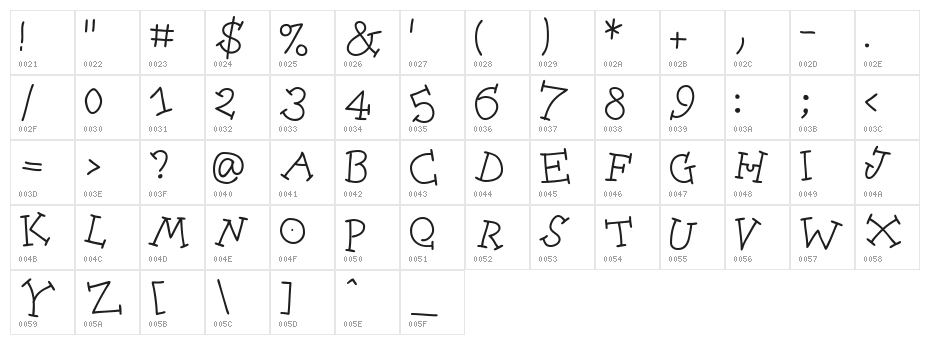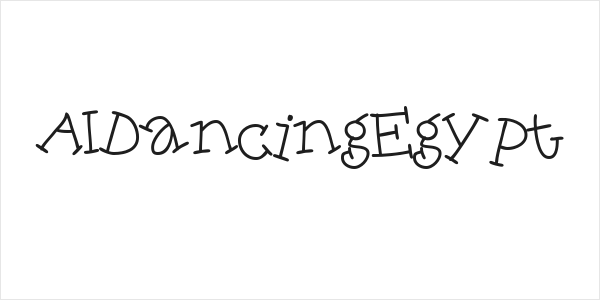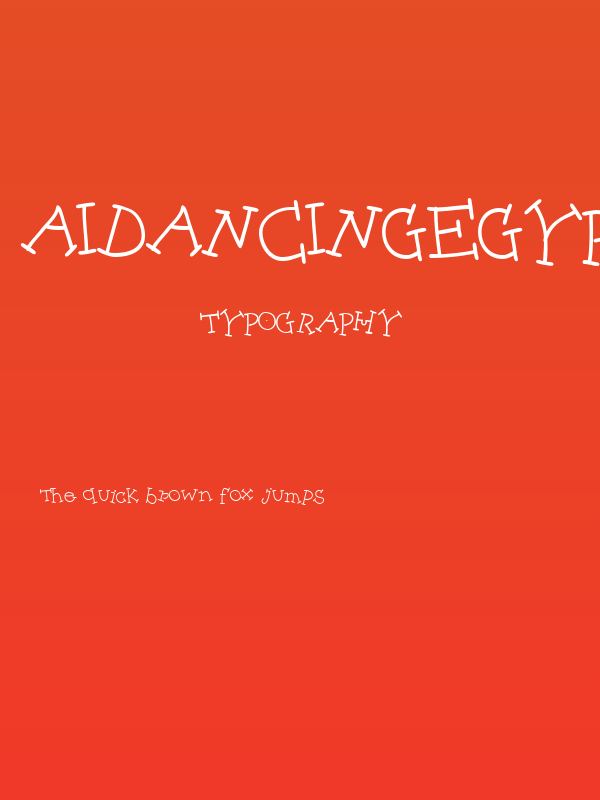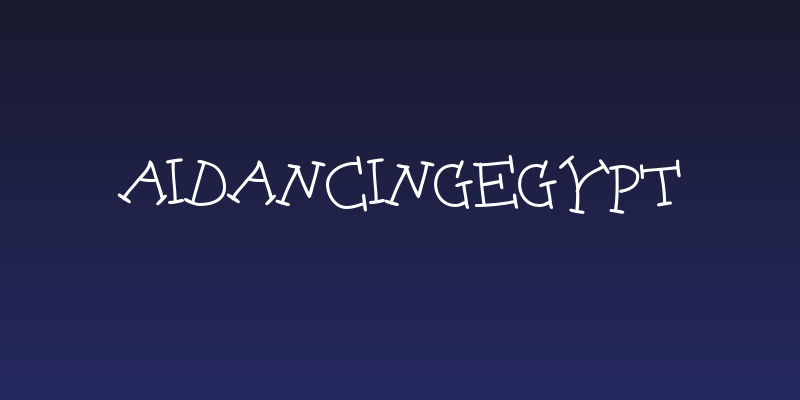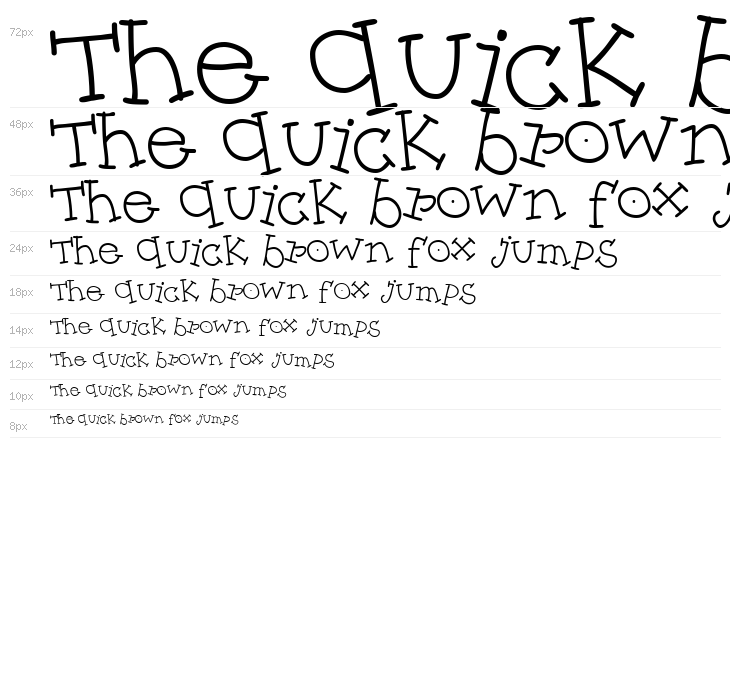
AIDancingEgypt Font
| Caso d'uso | Logos, Headlines, Creative projects |
| Progetti proposti | Ideal for children's books, playful branding, greeting cards, and creative posters. |